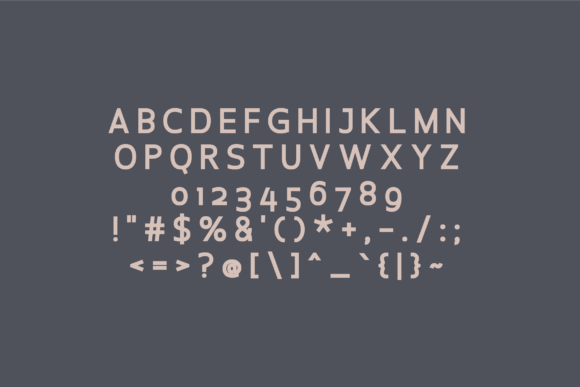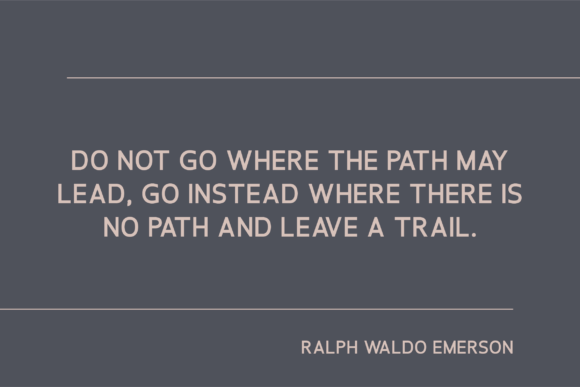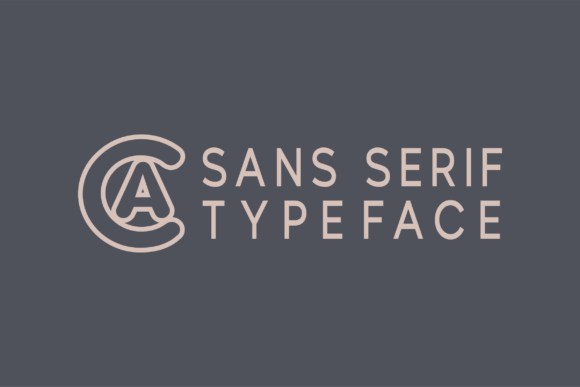
Introduction to Quizzybee Font
Remember that moment when you’re scrolling through your social media feed and a bold, eye-catching logo catches your attention? That’s the power of a well-designed font. For designers, finding the perfect font can make all the difference in creating a stunning visual identity for their projects. And that’s where the Quizzybee Font comes in – a game-changing design resource that’s about to revolutionize your creative process.
As a modern, all-caps sans-serif font, Quizzybee Font is designed to deliver clean, impactful visuals that are perfect for logos, headlines, posters, packaging, and digital content. With its strong, confident look, this font is ideal for branding, tech, fashion, and creative projects, adding a professional touch without being too complex.
Whether you’re working on a high-quality design project or need a reliable font for your next creative endeavor, Quizzybee Font is a valuable asset that’s sure to enhance your work with bold minimalism. And the best part? It’s simple to use, highly versatile, and ready for download – making it a must-have design resource for any creative professional.
Key Features of Quizzybee Font
- High-quality design resource suitable for creative projects, offering a unique and playful style.
- Quizzybee Font features a transparent background, making it easy to overlay on images or other design elements.
- Designed with a high-resolution, pixel-perfect quality, ensuring crisp and clear text output at various resolutions.
- Unique characteristics include a fun, childlike feel and a wide range of glyphs, making it suitable for a variety of creative projects.
Honest Review: Quizzybee Font
I recently had the chance to work with the Quizzybee Font, and I must say it’s been a delightful experience. This font is a great addition to any designer’s arsenal, especially for creative projects that require a unique touch.
Some of the key features of the Quizzybee Font include:
- High-quality design perfect for digital projects
- Transparent background option for seamless integration
- Perfect for creative projects requiring a unique touch
Limitations: ⚠️ One potential drawback of the Quizzybee Font is its limited character set. While it’s perfect for short headings and titles, it may not be the best choice for longer blocks of text. Additionally, some designers may find the modern design too trendy for certain projects.
Overall, I’m impressed with the Quizzybee Font and would highly recommend it to designers looking for a high-quality, unique font for their creative projects.
The Quizzybee Font is perfect for designing invitations, posters, and social media graphics. Its high quality and transparent background make it ideal for use in various design applications.
Alternatives to Quizzybee Font
Is the Quizzybee Font available in other languages?
No, the Quizzybee Font is currently only available in the English language. However, it’s a great resource for designers working on English-language projects, and it can be used in conjunction with other fonts to create a multilingual design. If you’re looking for a font with language support, you may want to consider other design resources available online.